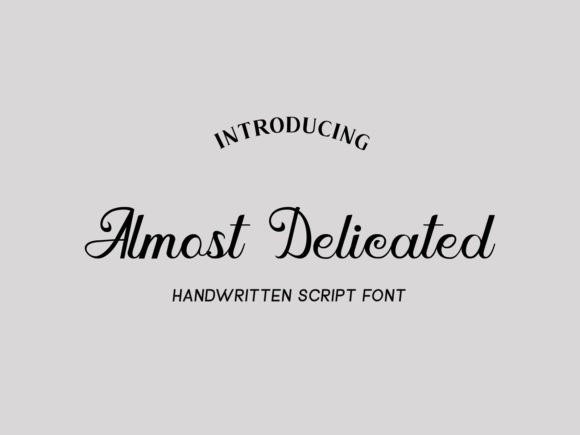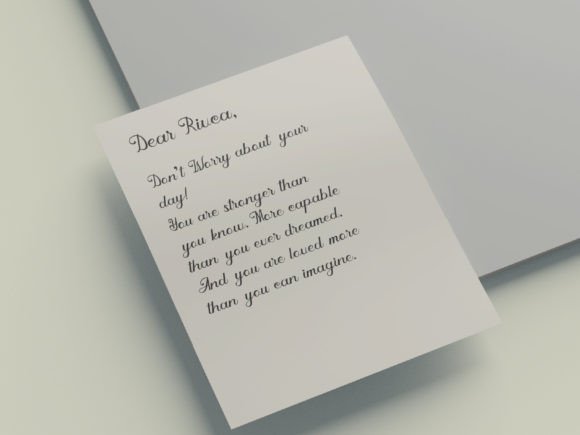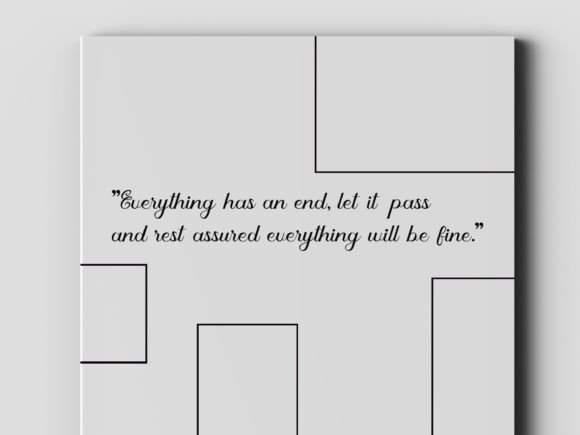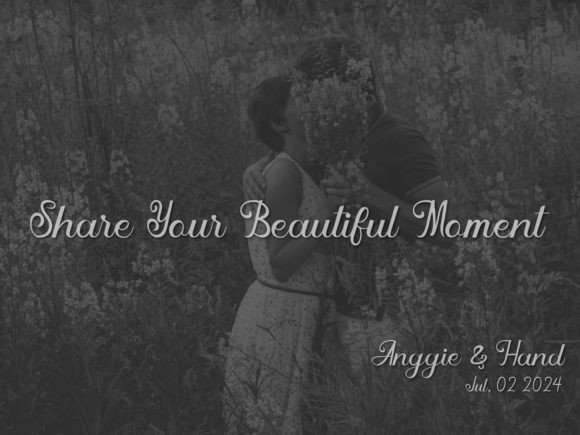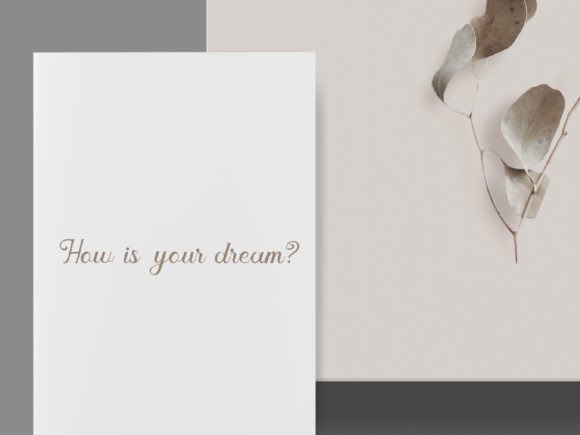
Introducing “Almost Delicated” – A Modern Script Font for Creative Projects
In the world of typography, a good font can make all the difference in the success of a creative project. Whether you’re a designer, crafty DIY enthusiast, or entrepreneur, finding the right font can elevate your brand’s visual identity and leave a lasting impression on your audience. If you’re on the hunt for a modern script font that exudes elegance and sophistication, look no further than “Almost Delicated”.
What is “Almost Delicated”?
“Almost Delicated” is a professional modern script font with a handwritten style that is sure to make your designs look fresh, elegant, and stylish. This beautiful font is perfect for a wide range of creative projects, including logos, cards, apparel, printed products, invitations, product packaging, letterhead, magazines, books, and more.
Key Features of “Almost Delicated”
- Handwritten Style: “Almost Delicated” boasts a beautiful, handwritten style that adds a touch of warmth and personality to your designs.
- Modern and Elegant: This font is perfect for designers and crafters who want to create modern, elegant, and sophisticated designs.
- Versatile: “Almost Delicated” can be used for a wide range of creative projects, from logos and branding to invitations and packaging.
- Easy to Read: The font’s clear and legible design ensures that your message is conveyed effectively, making it perfect for body text and headlines.
Uses for “Almost Delicated”
The versatility of “Almost Delicated” makes it an excellent choice for various creative projects. Here are some ideas to get you started:
- Logo Design: Create a stunning logo for your brand or business with “Almost Delicated”. The font’s elegant style is sure to make your logo stand out.
- Stationery and Cards: Add a touch of sophistication to your stationery, greeting cards, and invitations with this beautiful font.
- Apparel and Merchandise: Use “Almost Delicated” to create stylish and eye-catching designs for t-shirts, mugs, and other merchandise.
- Printed Products: Elevate your brochures, flyers, and posters with the modern and elegant style of “Almost Delicated”.
- Packaging Design: Make your product packaging stand out with this beautiful font.
Why Choose “Almost Delicated”?
With so many fonts available, why choose “Almost Delicated”? Here are a few compelling reasons:
- Unique Style: “Almost Delicated” offers a unique and distinctive style that will set your designs apart from the crowd.
- High-Quality Design: The font is professionally designed, ensuring that it looks great in any size or format.
“Almost Delicated” is a stunning modern script font that is perfect for creative projects that require a touch of elegance and sophistication. With its handwritten style, versatility, and ease of use, this font is sure to become a favorite among designers and crafters. Whether you’re looking to create a logo, stationery, or packaging design, “Almost Delicated” is an excellent choice. So why wait? Download “Almost Delicated” today and take your designs to the next level!